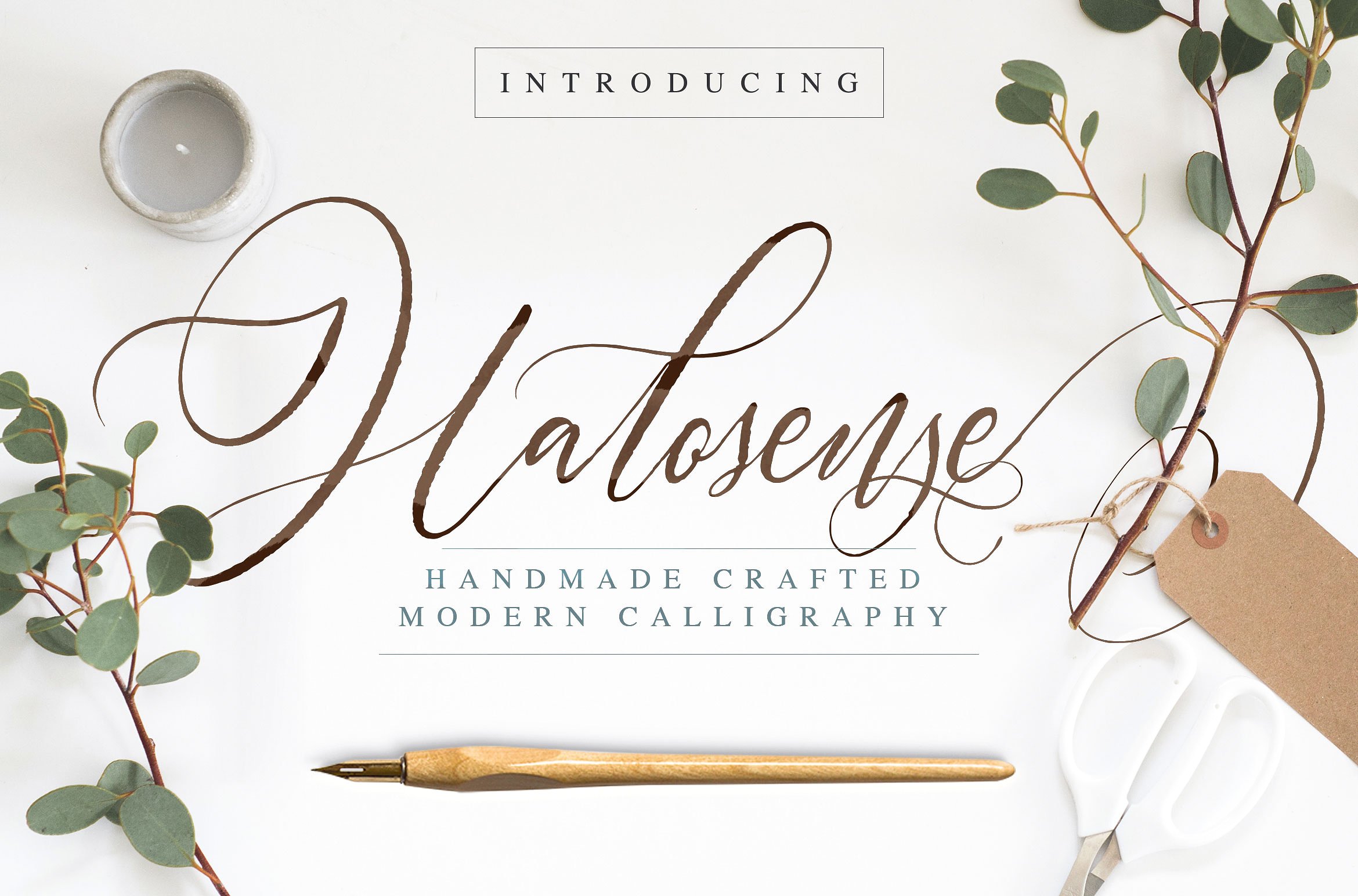
Halosense Script
Halosense Script Font
Introducing Halosense Handmade Crafted Modern Calligraphy. Referring from the product before called Octavia Script, this new modern calligraphy is more natural feel, handmade created with small touch of digital to make them flowing like a water on the river. 🙂
Halosense Script